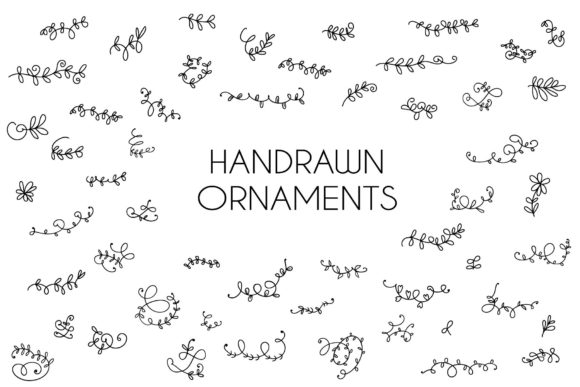
Feast your eyes on Handrawn Ornaments, the most captivating dingbats font family ever conceived. Step into a world of elegant artistry and immerse yourself in the magic of exquisite ornaments, borders, and flourishes. Discover the endless possibilities awaiting you as you unleash your creativity with this stunning font.
Handdrawn Ornaments isn't just a collection of ornate glyphs; it's an invitation to transform your digital designs, presentations, and greeting cards into true works of art. Whether you're a seasoned professional or just starting your creative journey, this font will elevate your projects to new heights.
Crafted with meticulous attention to detail, each character in the Handdrawn Ornaments font family is a visual masterpiece. From the delicate swirls of the borders to the intricate patterns of the flourishes, every element has been carefully designed to evoke a sense of sophistication and charm.
Create breathtaking brochures that leave a lasting impression. Let the elegance of Handdrawn Ornaments dance across your pages, enticing readers with its whimsical allure. Highlight important information with artistic borders, add a touch of whimsy with decorative flourishes, and watch as your words come to life.
Handdrawn Ornaments is the ultimate font for crafters seeking to infuse their creations with a touch of magic. Imagine a world where your handmade cards, invitations, and decorations exude a sense of timeless elegance. With this font by your side, you'll elevate your crafting projects to new heights of beauty and artistry.
Unleash your creativity and immerse yourself in the enchanting world of Handdrawn Ornaments. Embrace the beauty of hand-drawn artistry, let your imagination soar, and create designs that captivate and inspire. The possibilities are endless, and the journey begins with a single click.